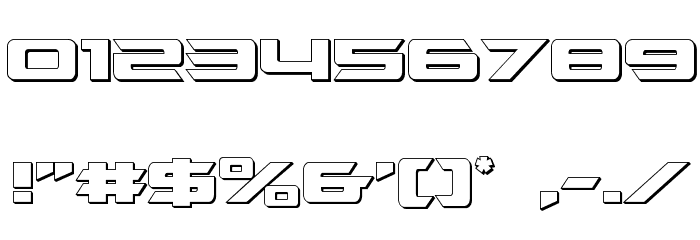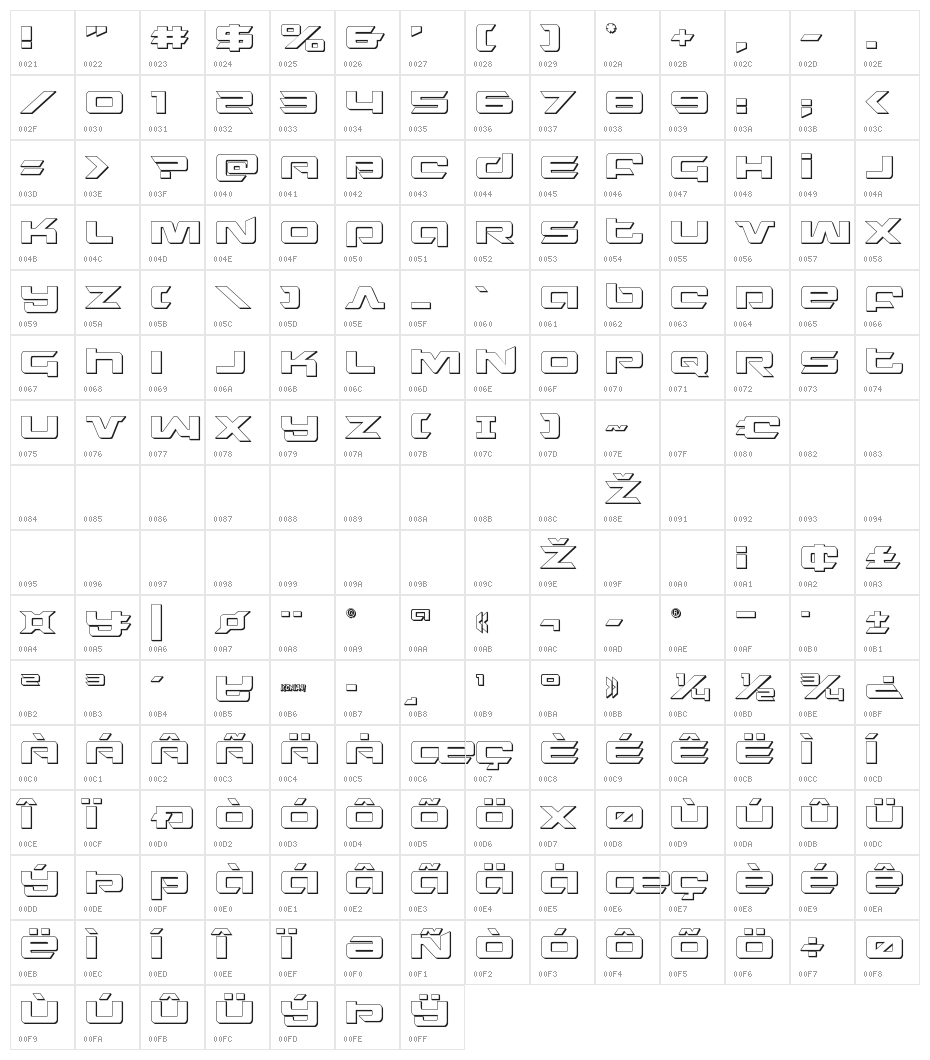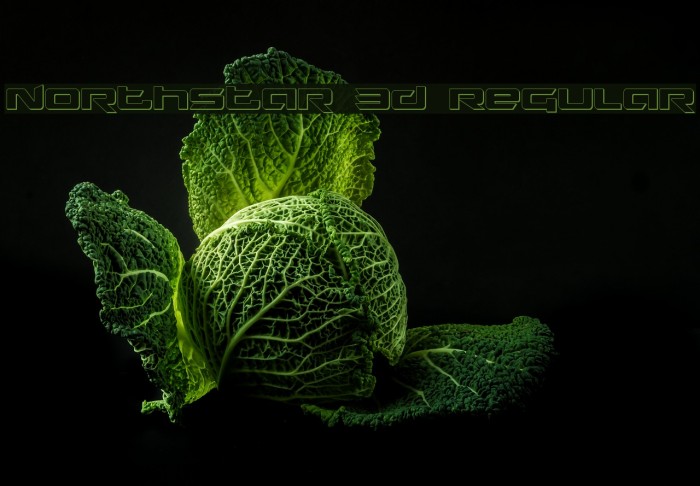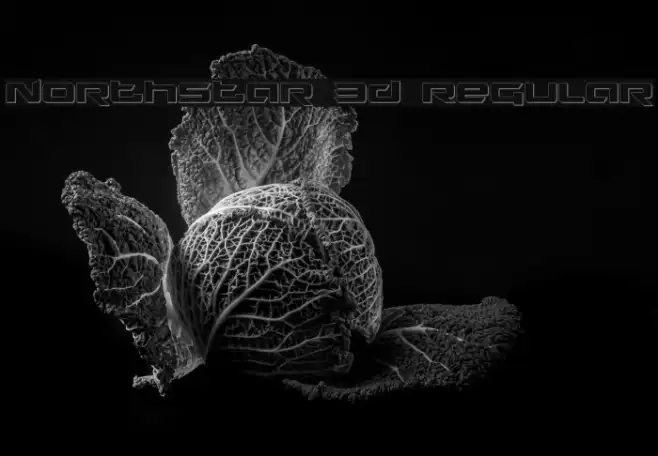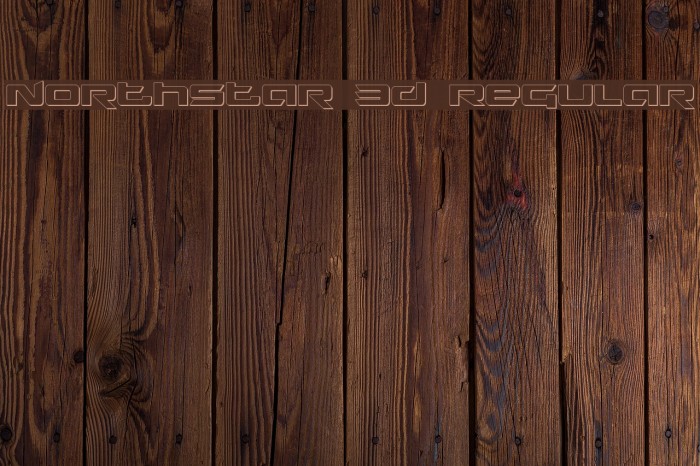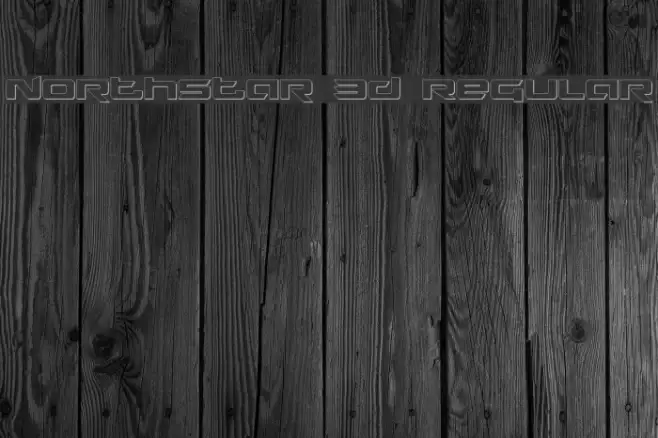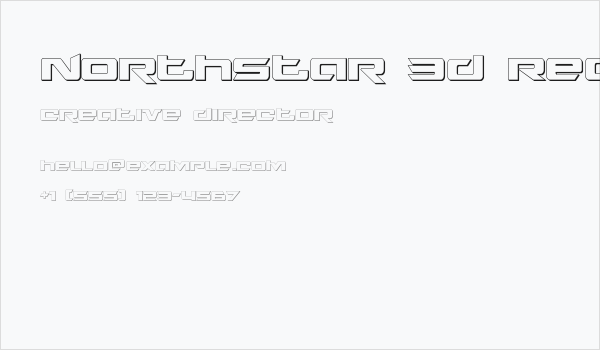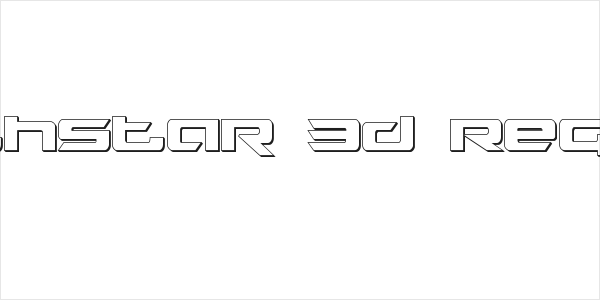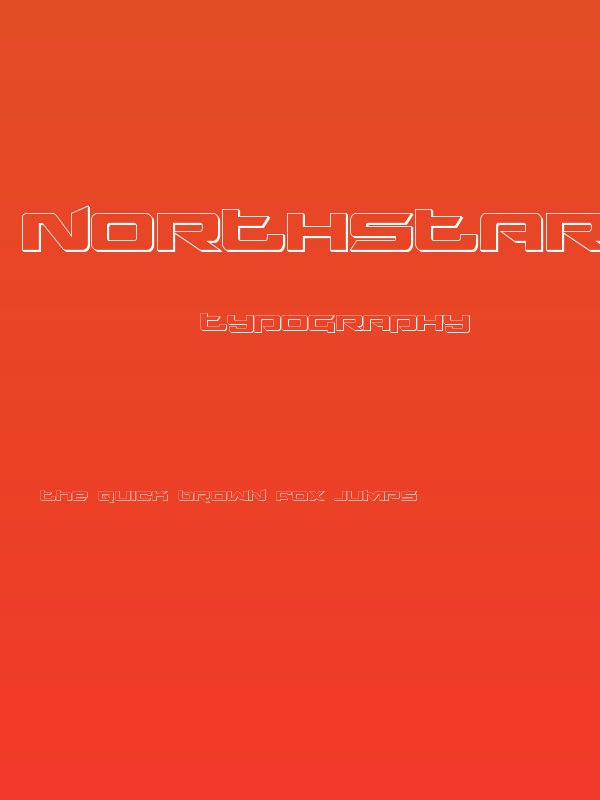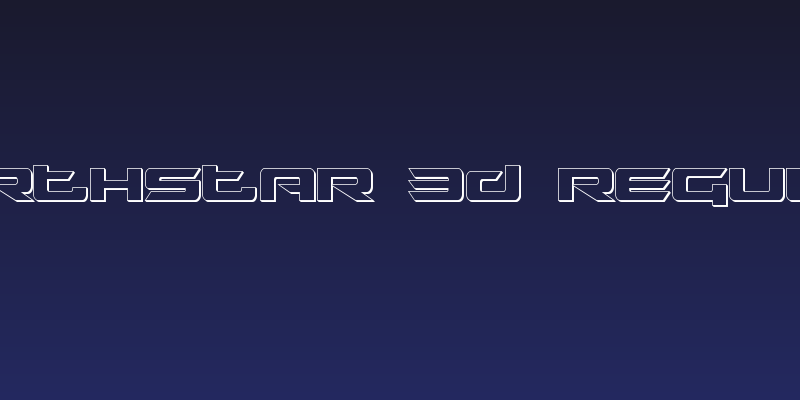
This font features a futuristic and geometric design with a 3D effect that gives it a unique, modern appearance. The characters are constructed with bold, angular lines and sharp edges, creating a sense of depth and dimension. The uppercase and lowercase letters maintain a consistent style, with a uniform width and height that enhances readability. Numbers and special characters are designed to match the overall aesthetic, making this font versatile for various applications. The clean, structured look is ideal for projects that require a contemporary and tech-inspired feel.
| Proposed Projects | Ideal for tech branding, video game titles, sci-fi posters, and digital interfaces. |